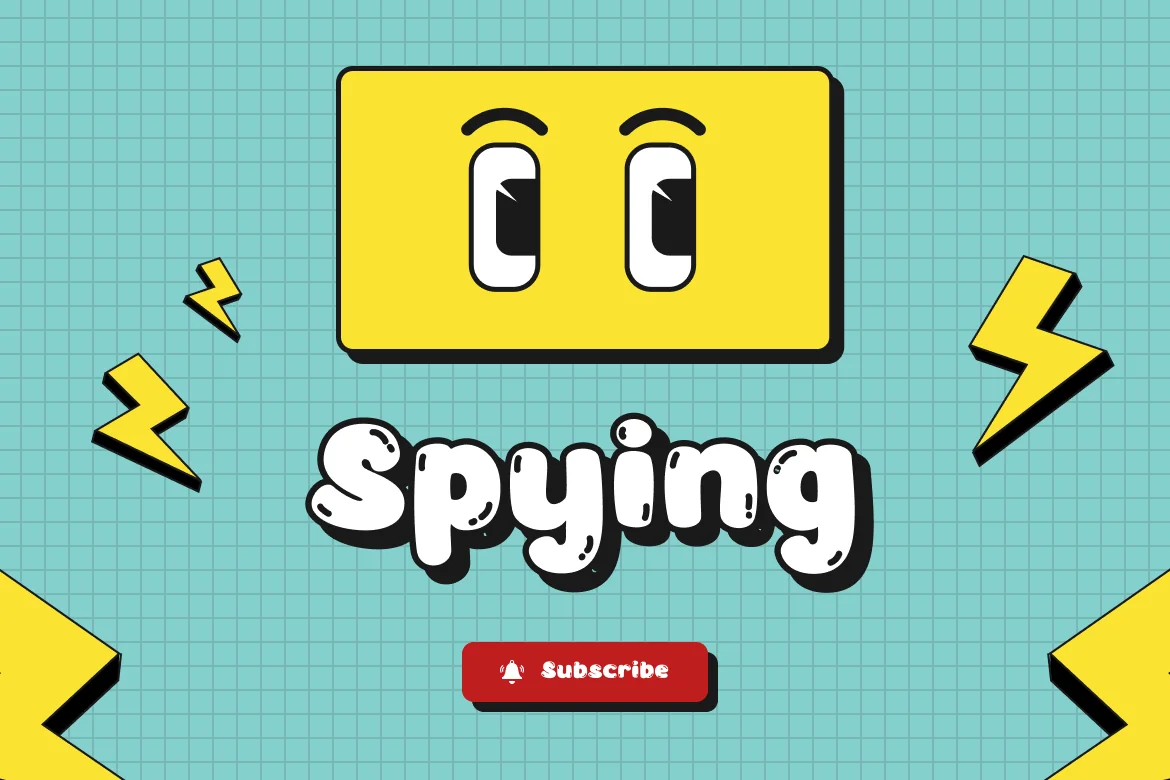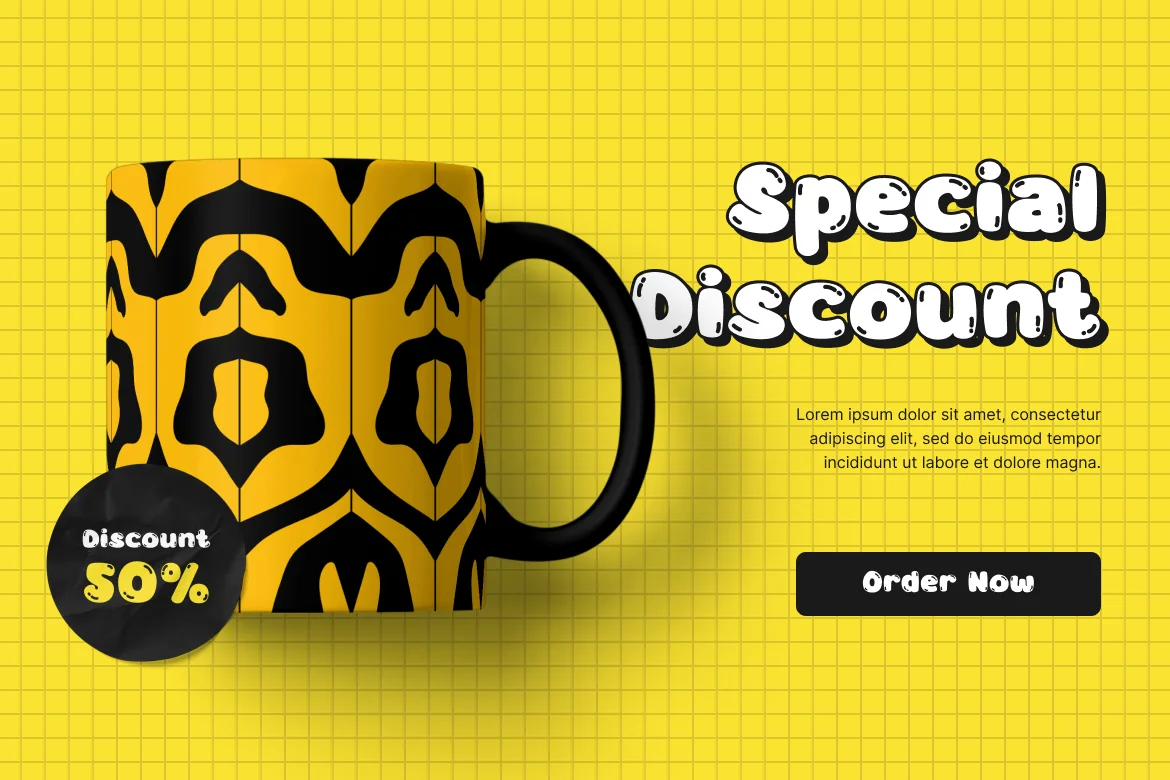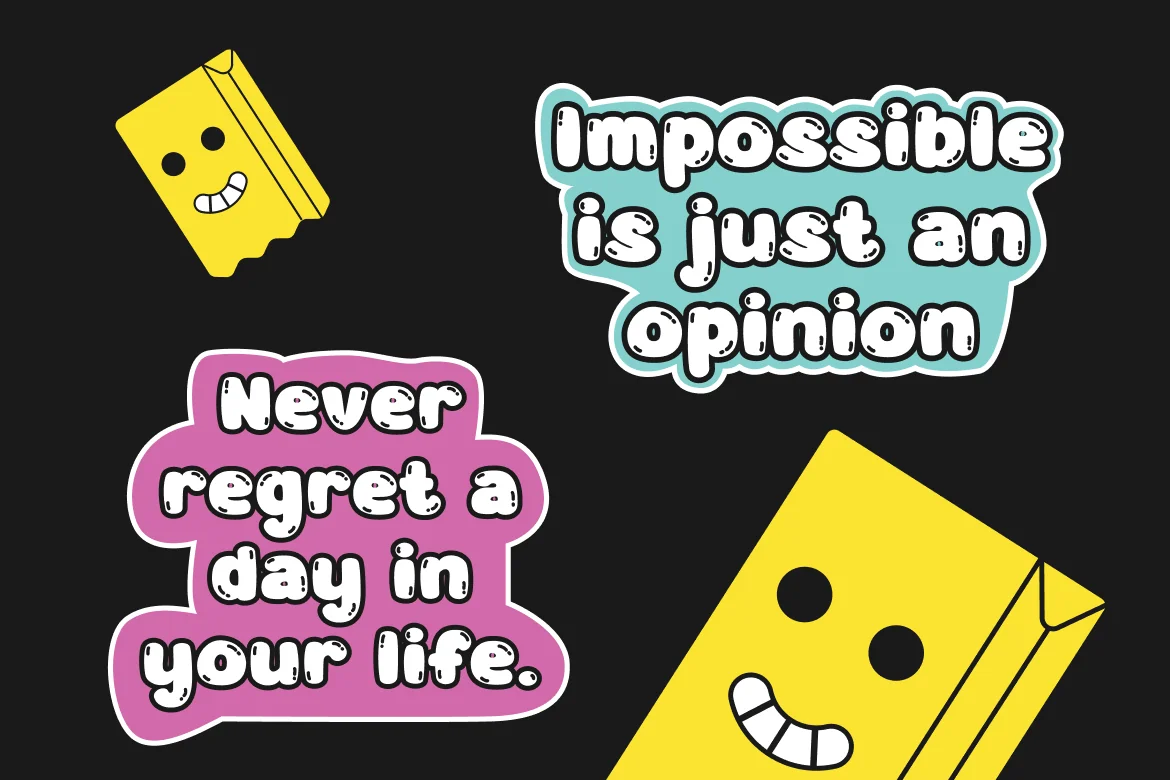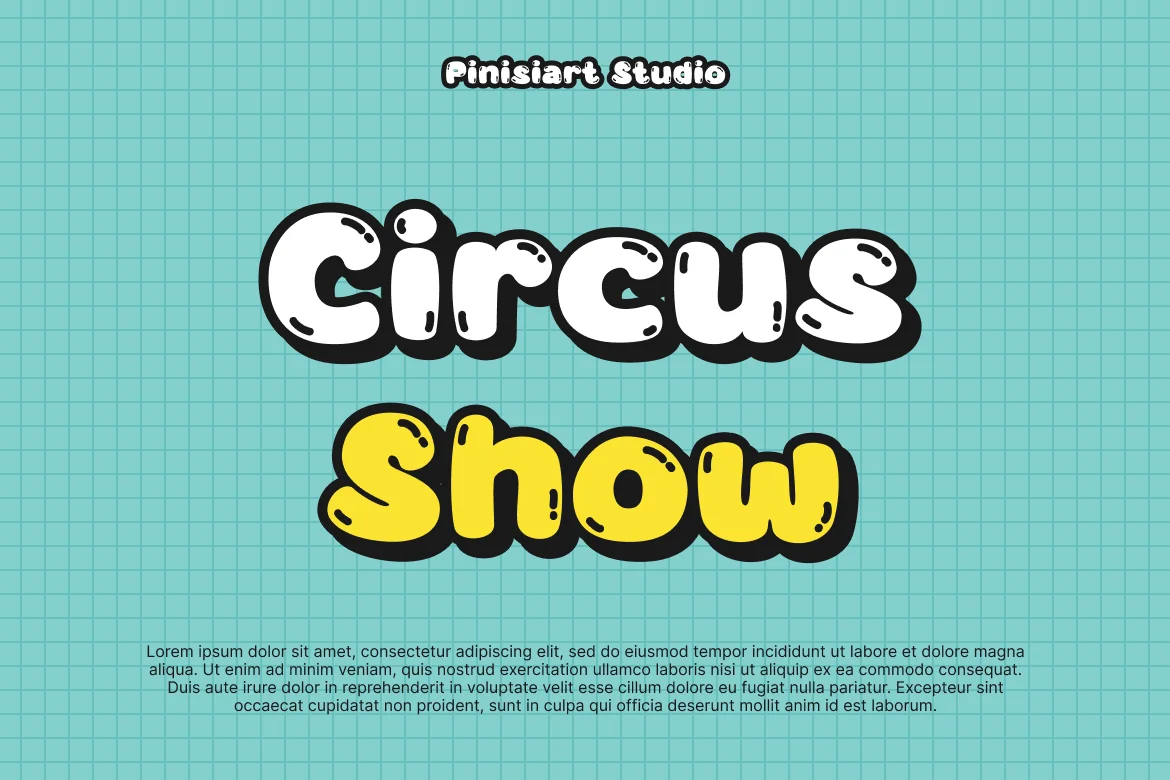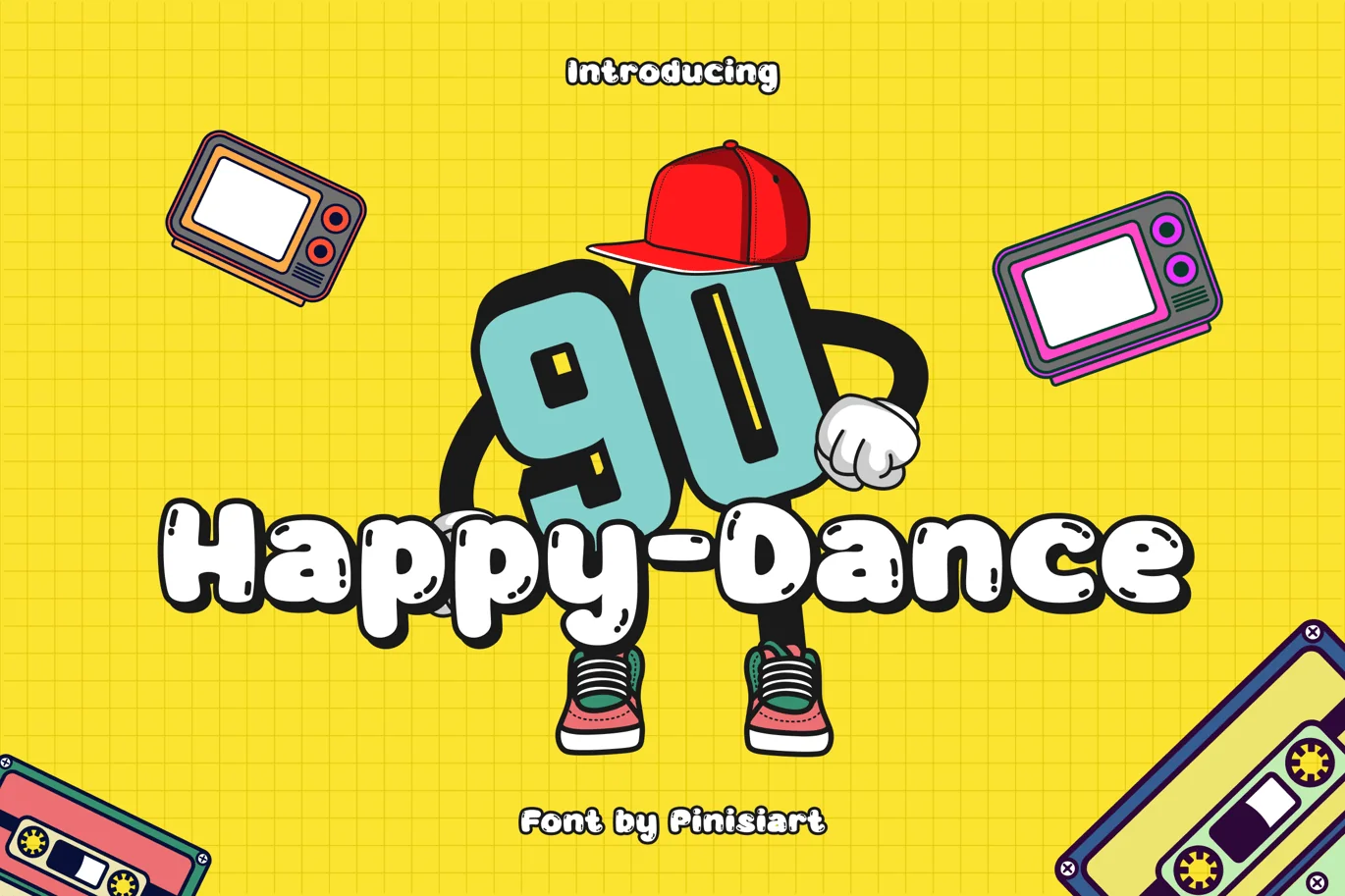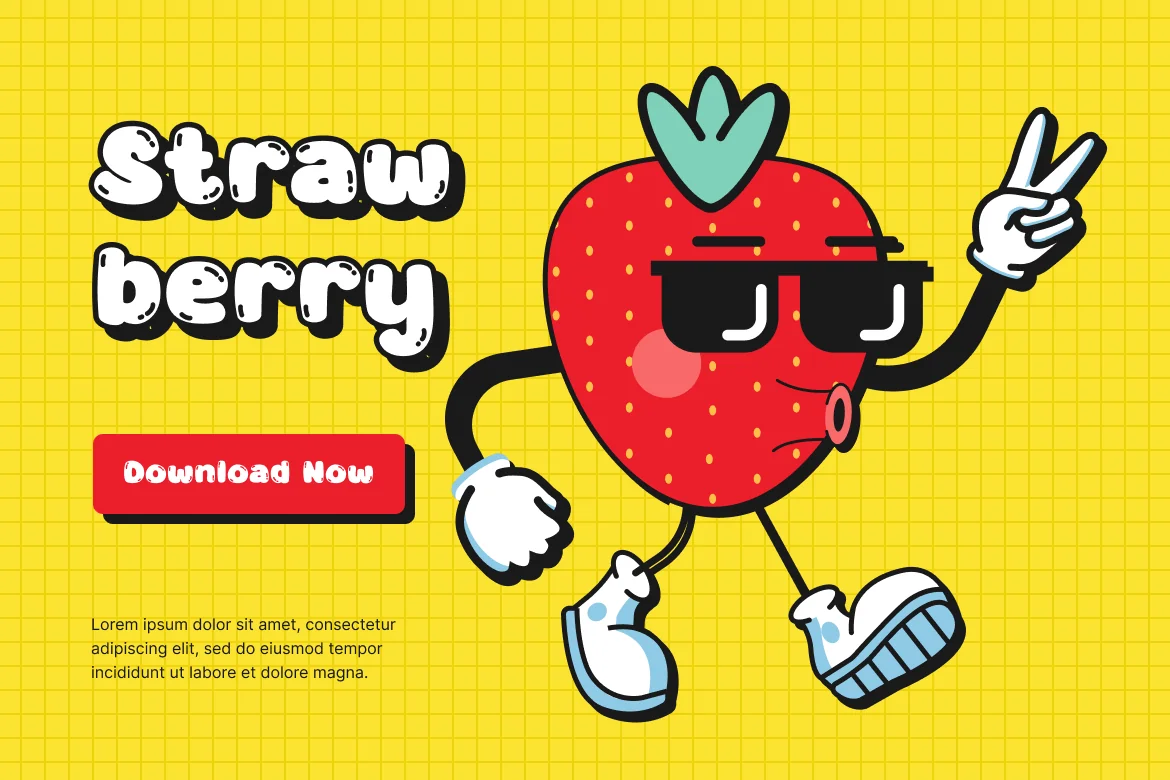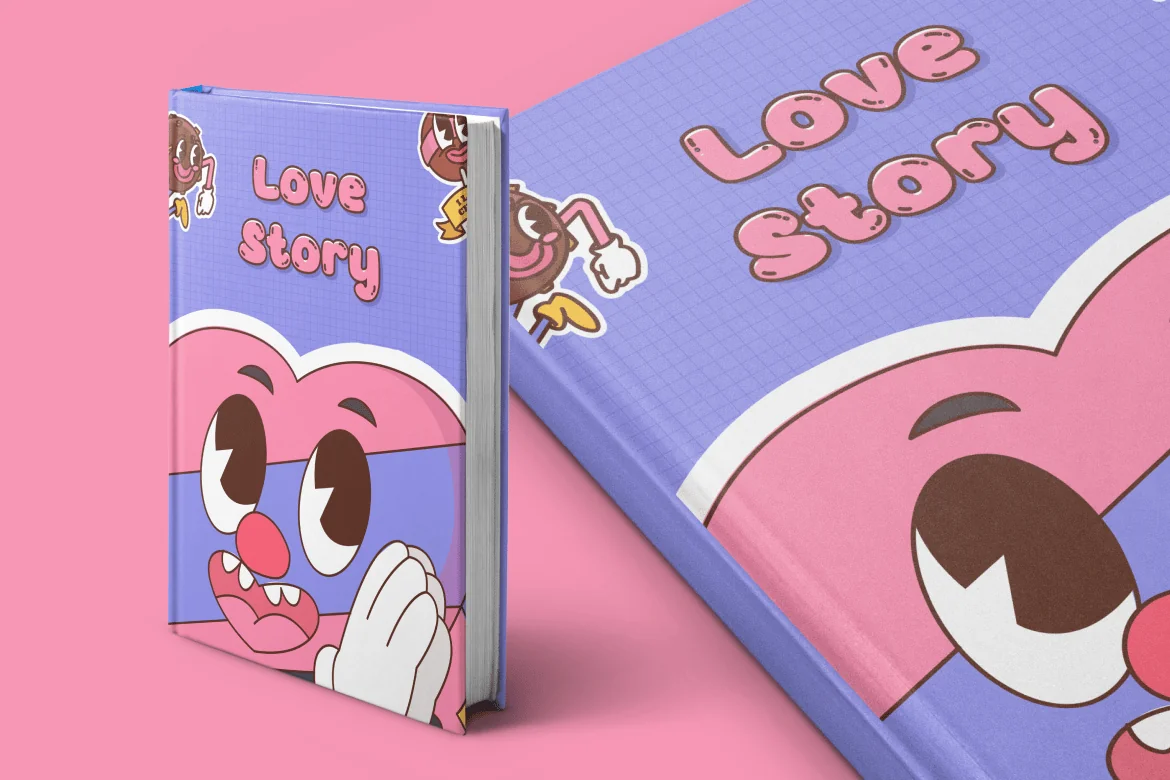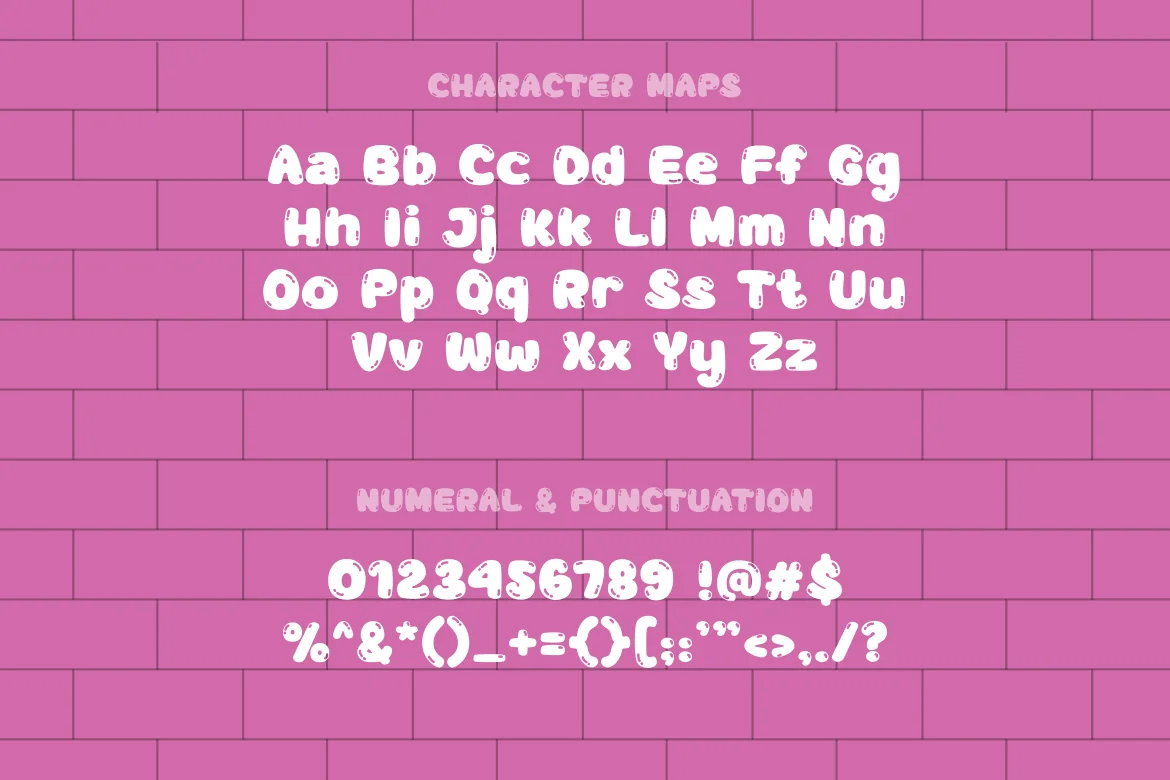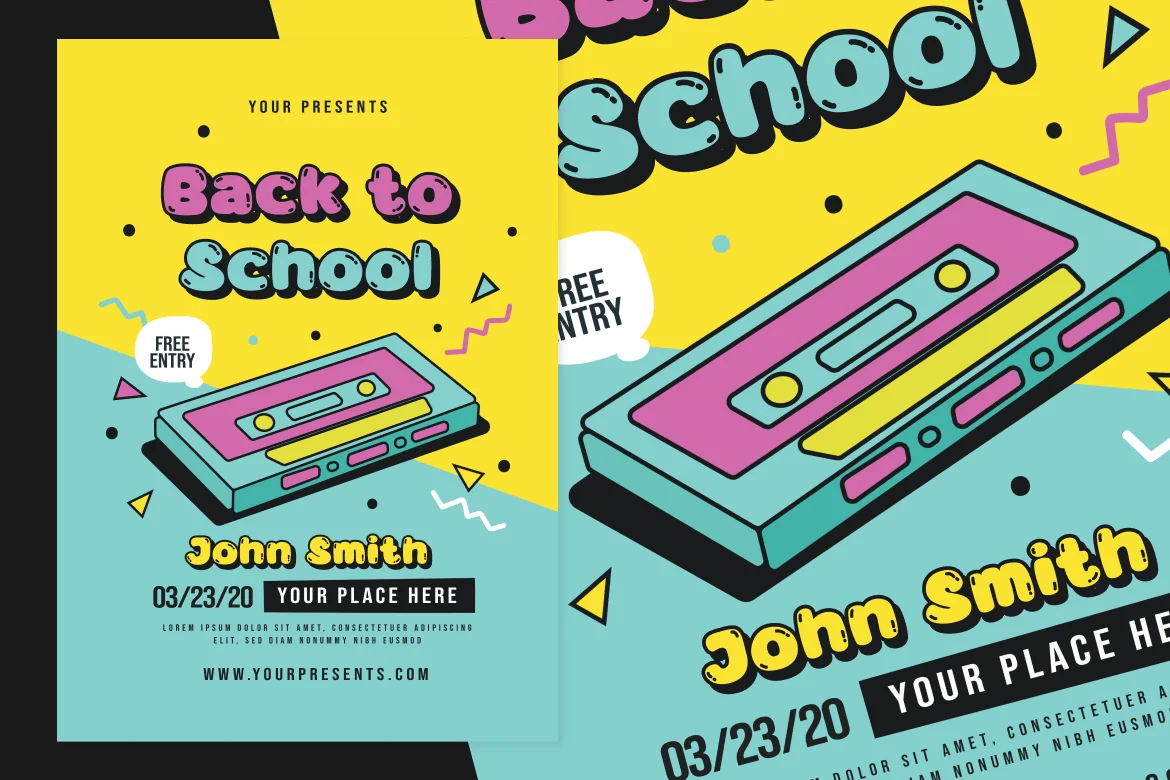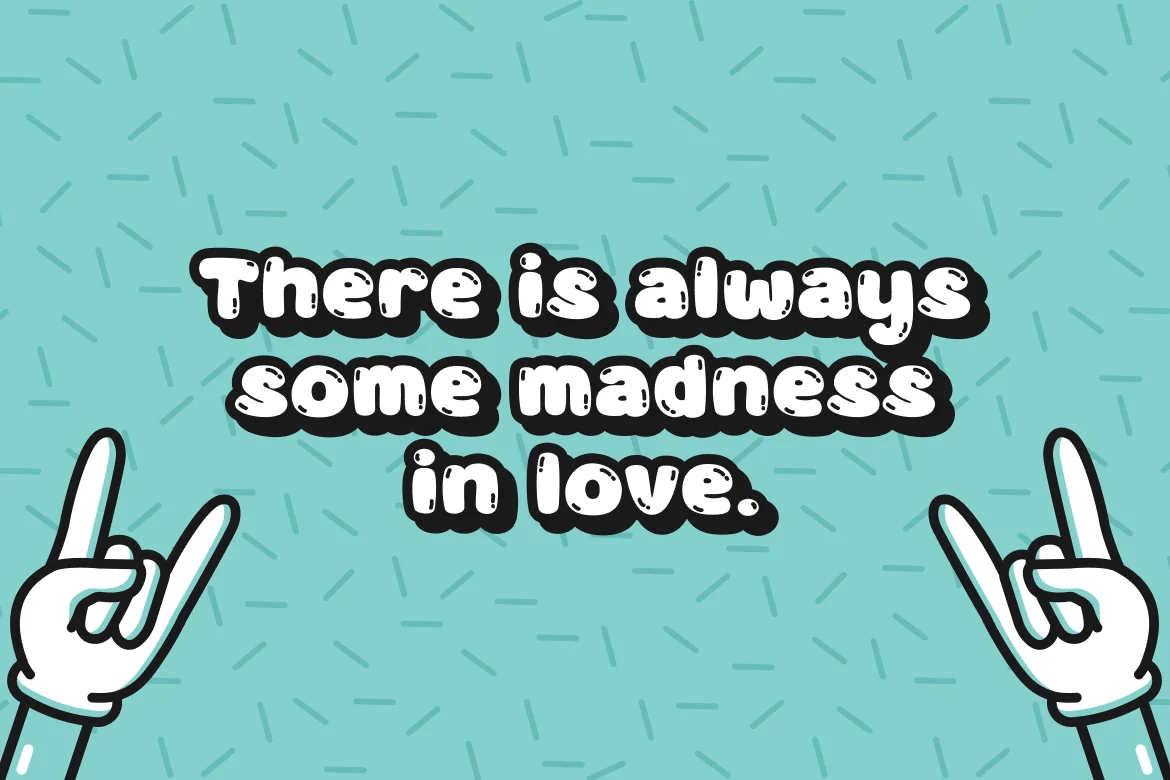
Bubble Font – Happy Dance
Happy Dance – Pop Art Display Font
Disco vibes , fun, bold, blobby, and giving a huge impact for the projects you’re working on. Happy Dance is rocking the pop art style in its own way.
Suit perfectly for fun encouraging themes books market, music retro poster, stationary, school supplies font, youtube covers, youtube thumbnails, social media page covers and so on…